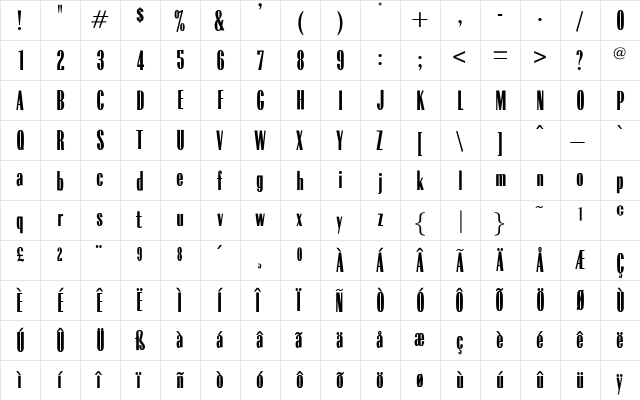
OPTIRadiant Regular
Design Context for OPTIRadiant Typeface
OPTIRadiant is a composed and adaptable typeface that performs quietly and consistently across a wide range of design contexts.